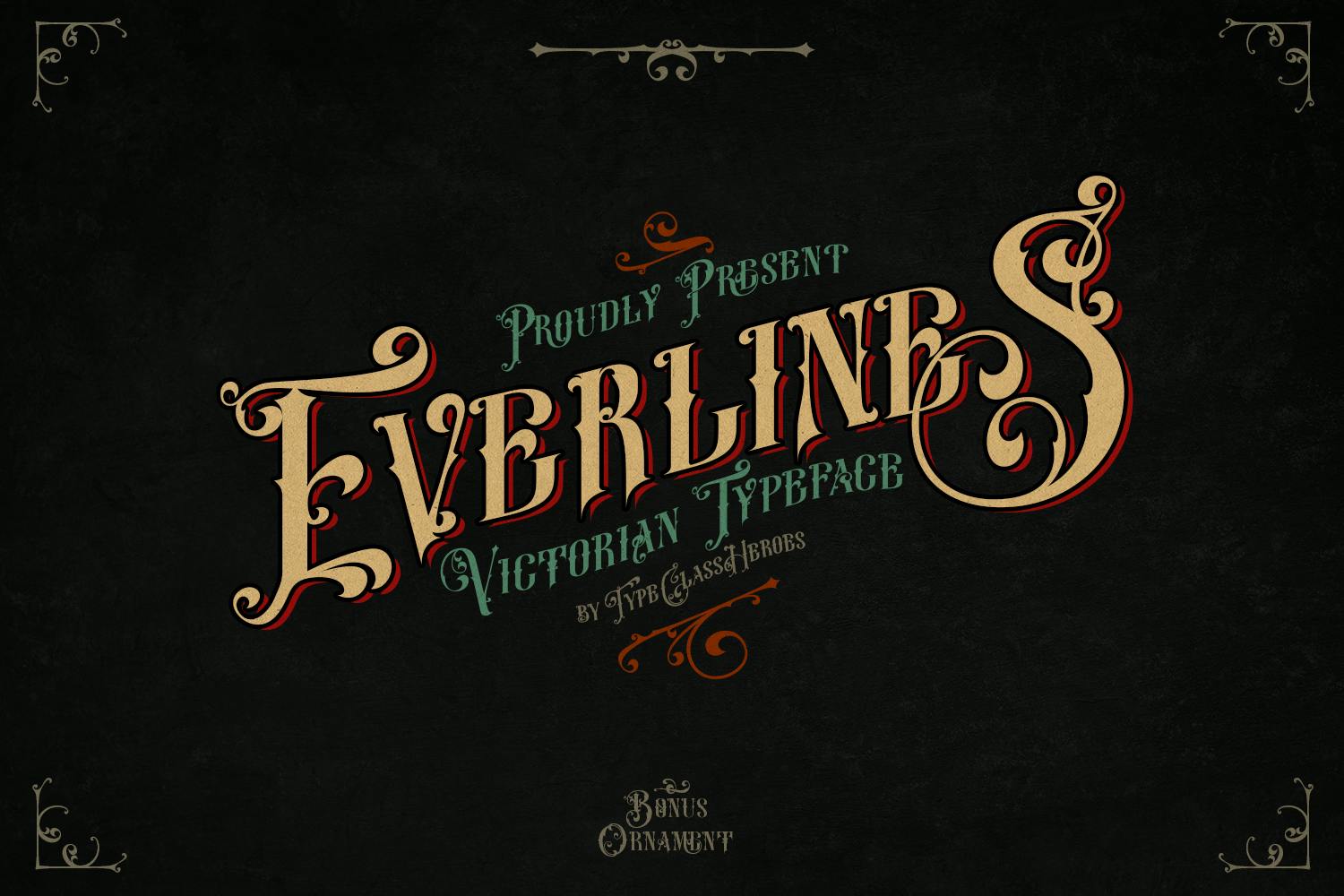
Everlines Victorian Font
The Everlines Victorian Font is perfect for vintage wedding invitations, historical book covers, antique branding projects, period drama titles, classic restaurant menus, heritage museum displays, traditional luxury packaging, vintage poster designs, historical documentary graphics, and elegant Victorian-themed celebrations.
What makes the Everlines Victorian Font so exciting is its authentic recreation of ornate Victorian elegance with intricate decorative flourishes that transport viewers to the grandeur of the 19th century. This magnificent typeface features elaborate ornamental details, classical proportions, and sophisticated embellishments that perfectly capture the opulent aesthetic of the Victorian era. The font's rich historical character and ornate sophistication make it an exceptional choice for projects seeking to communicate timeless elegance, heritage quality, and classical refinement with authentic period authenticity.
The Everlines Victorian Font family includes ornamental variations and decorative elements, featuring elaborate capitals, intricate flourishes, and period-appropriate ornaments. Each variation maintains the signature Victorian grandeur while offering different levels of decorative complexity and historical detail, providing designers with extensive possibilities for creating authentic period designs and elegant classical expressions.
This exceptional Everlines Victorian Font Free Download represents the perfect historical typography solution for designers who need authentic Victorian styling that captures the essence of classical elegance and period sophistication. Whether you're developing heritage brand identities, creating historical educational materials, or designing elegant vintage celebrations, this versatile Victorian font delivers compelling results that resonate with audiences appreciating classical beauty and historical authenticity.
The exquisite ornamental details of Everlines Victorian Font showcase masterful period typography design, with each letter featuring carefully crafted decorative elements and classical refinements that enhance its authentic Victorian appeal. The font's comprehensive character set includes uppercase and lowercase letters, numerals, period-appropriate punctuation, and ornamental symbols, ensuring complete functionality for diverse historical projects and international applications.
Perfectly suited for both digital and print heritage applications, this remarkable font maintains its ornate Victorian character and classical elegance across various sizes and formats. From large-scale historical displays to detailed invitation text, Everlines Victorian Font adapts gracefully to any design challenge while preserving its distinctive period character and authentic Victorian sophistication.